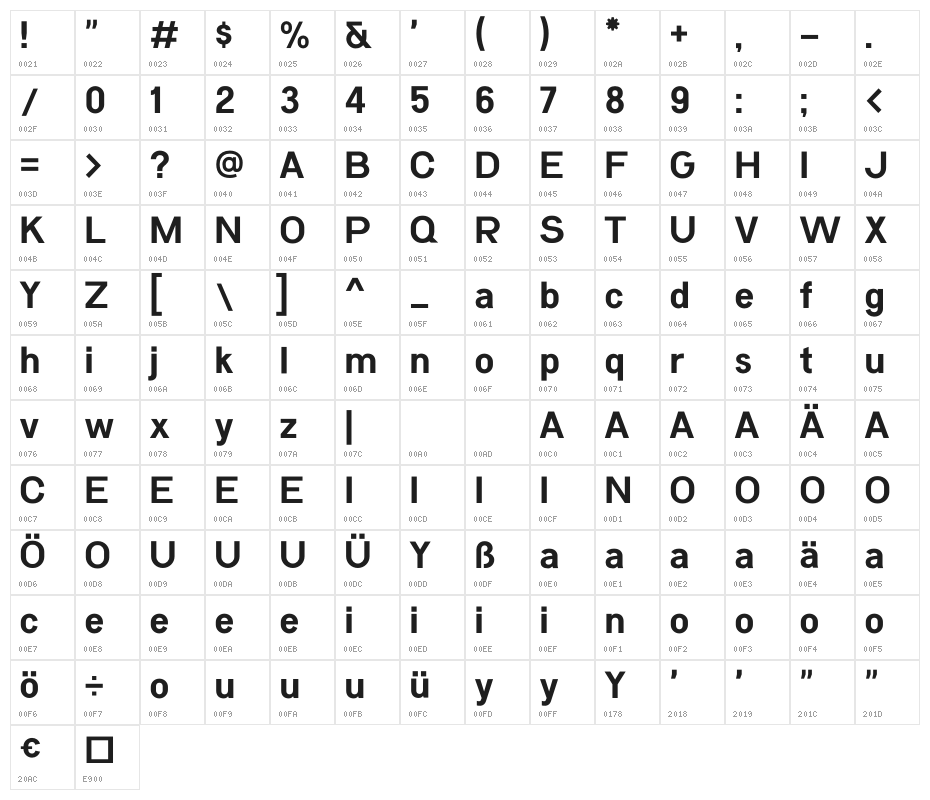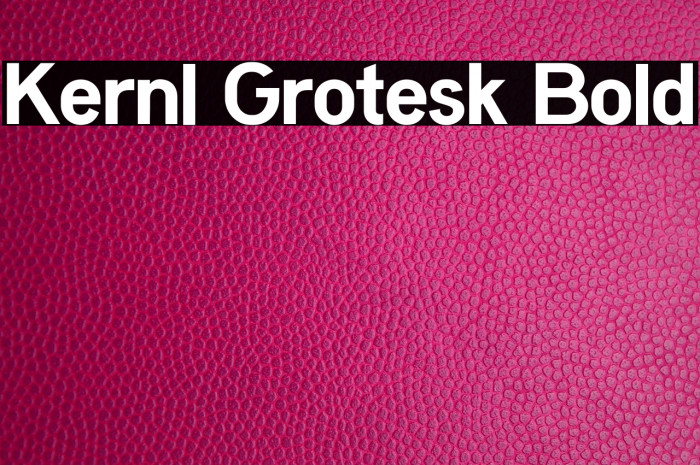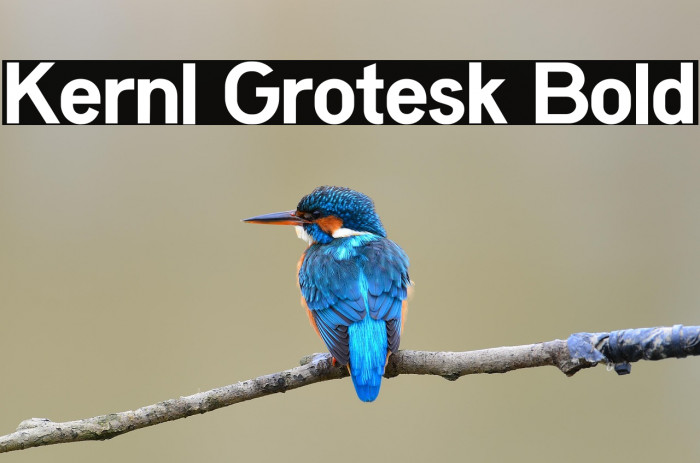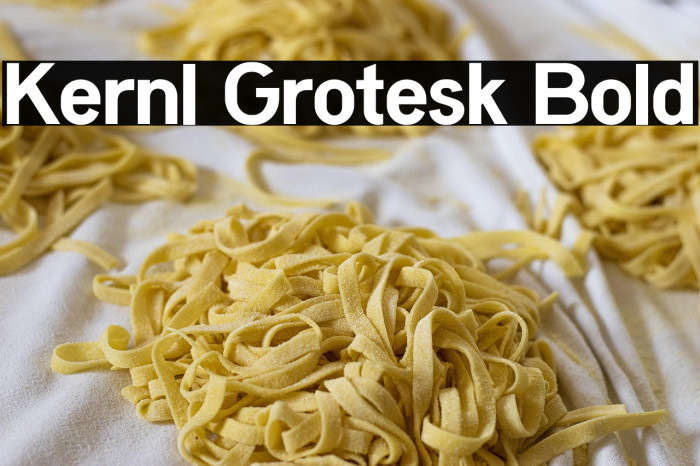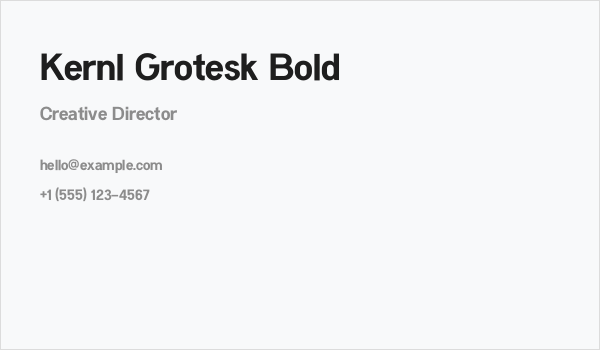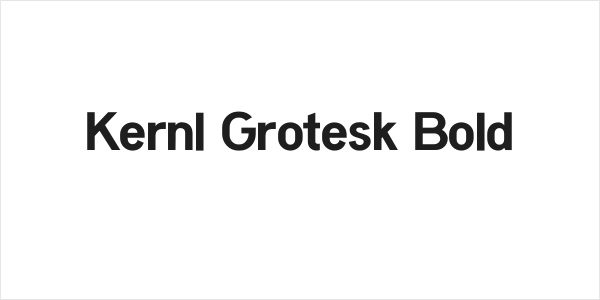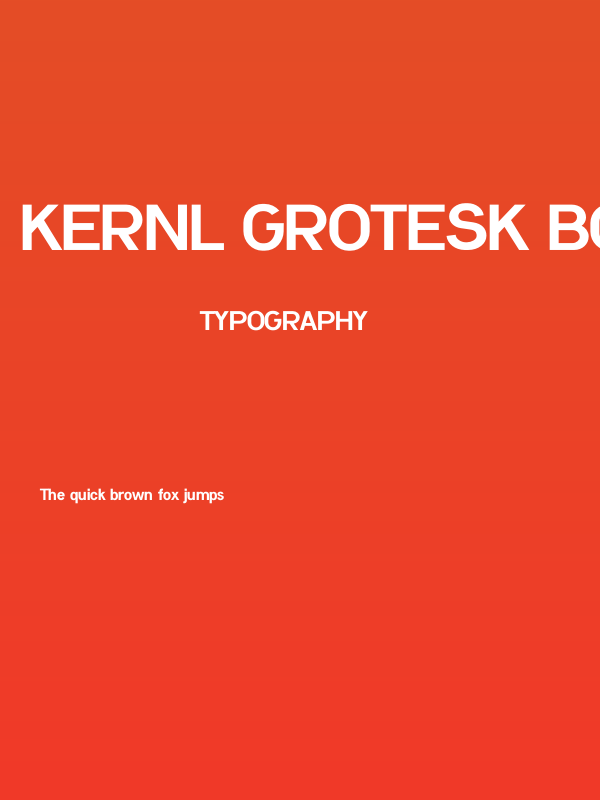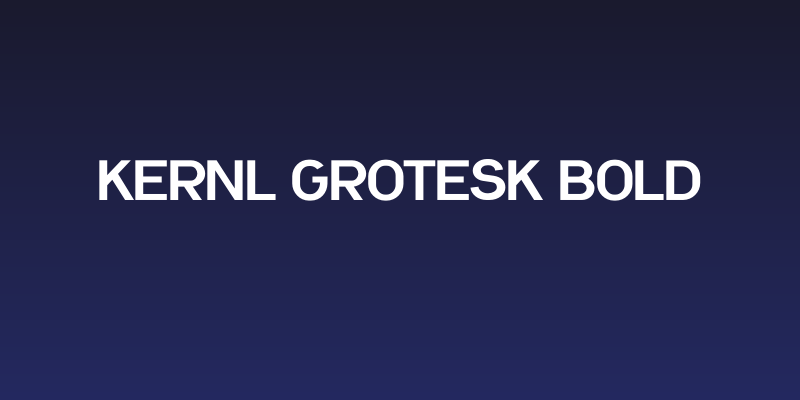
This font features a bold and modern sans-serif design, characterized by clean lines and a geometric structure. The uppercase and lowercase letters are well-proportioned, offering a harmonious balance that enhances readability. The numerals are distinct and clear, making them suitable for various applications. Special characters are included, maintaining the font's cohesive style. The overall appearance is sleek and professional, making it versatile for both digital and print media.
| Proposed Projects | Ideal for branding, advertising, web design, and editorial projects where a modern and bold statement is needed. |